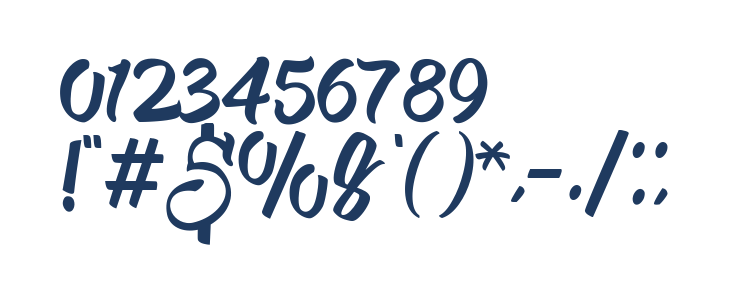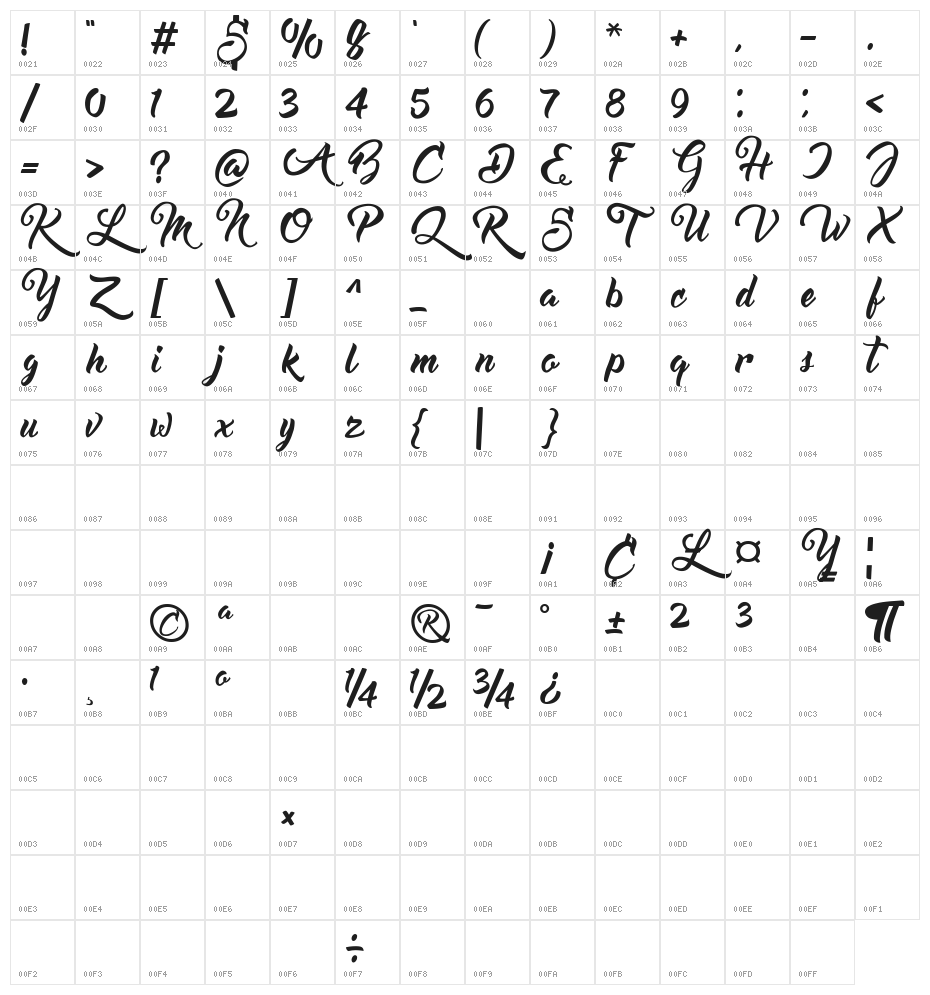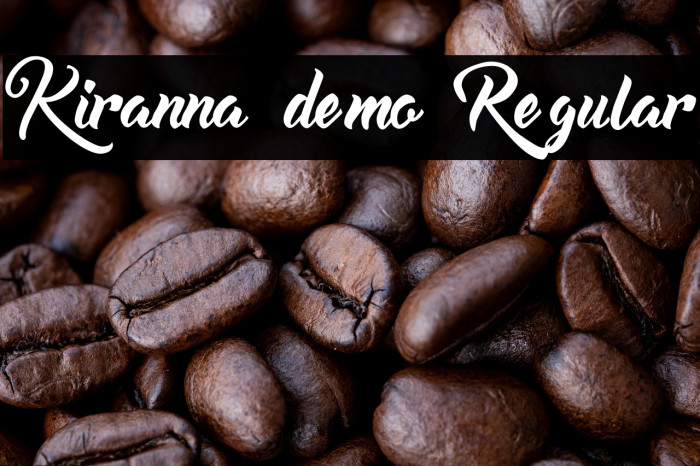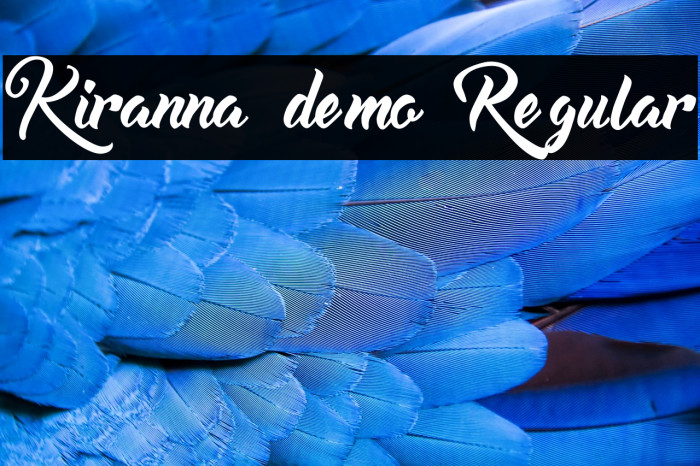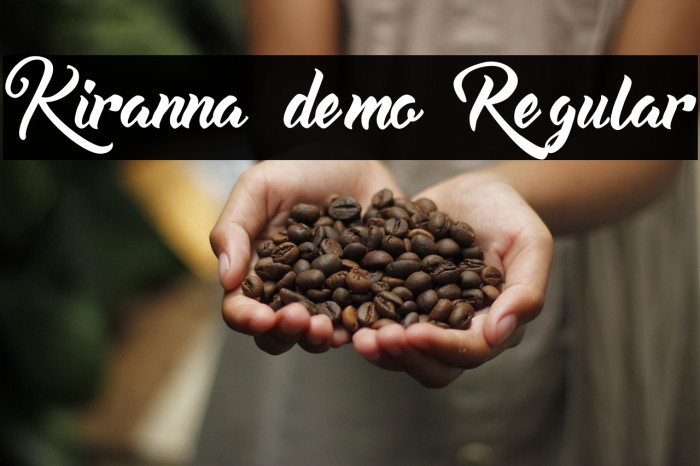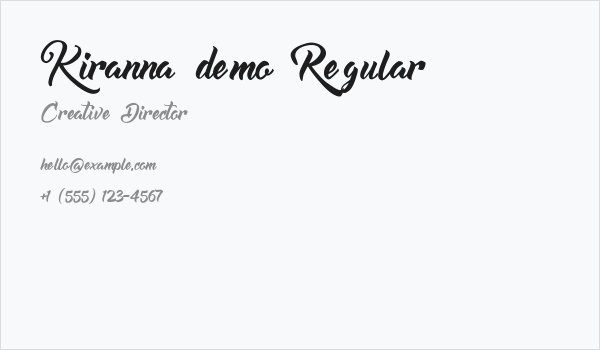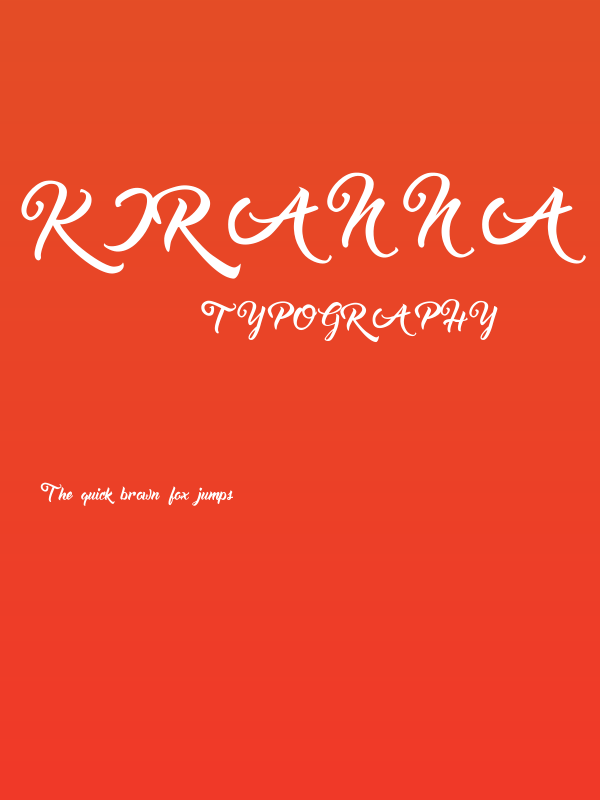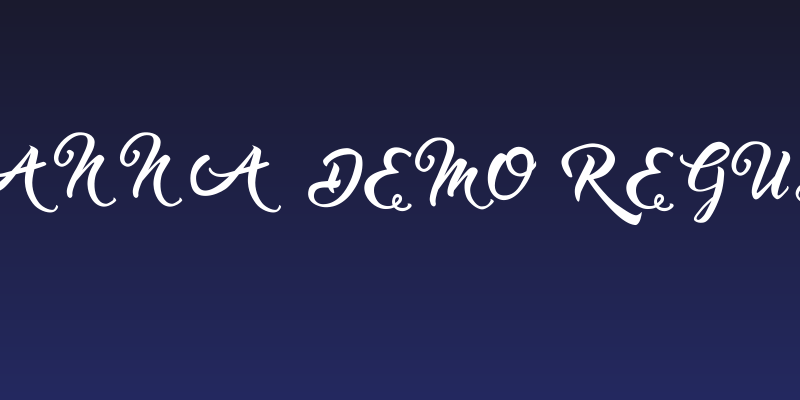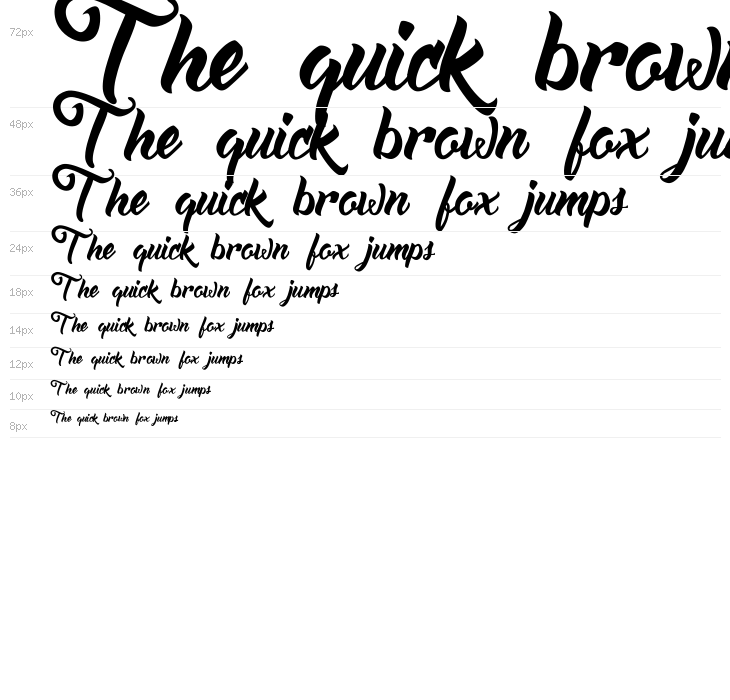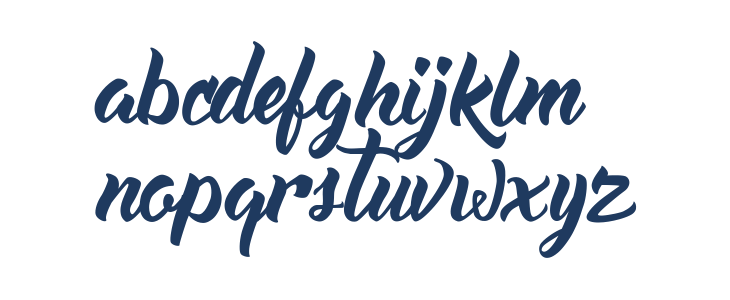
Kiranna demo Regular Font
Kiranna demo Regular Description
This font exhibits a dynamic and fluid script style, characterized by its elegant and flowing curves. The uppercase letters are gracefully connected, while the lowercase letters maintain a bold and expressive appearance. The numbers are distinct and maintain the same flowing style, ensuring consistency throughout. Special characters are creatively integrated, adding a playful yet sophisticated touch. This font's overall aesthetic is both artistic and modern, making it suitable for a variety of creative applications.